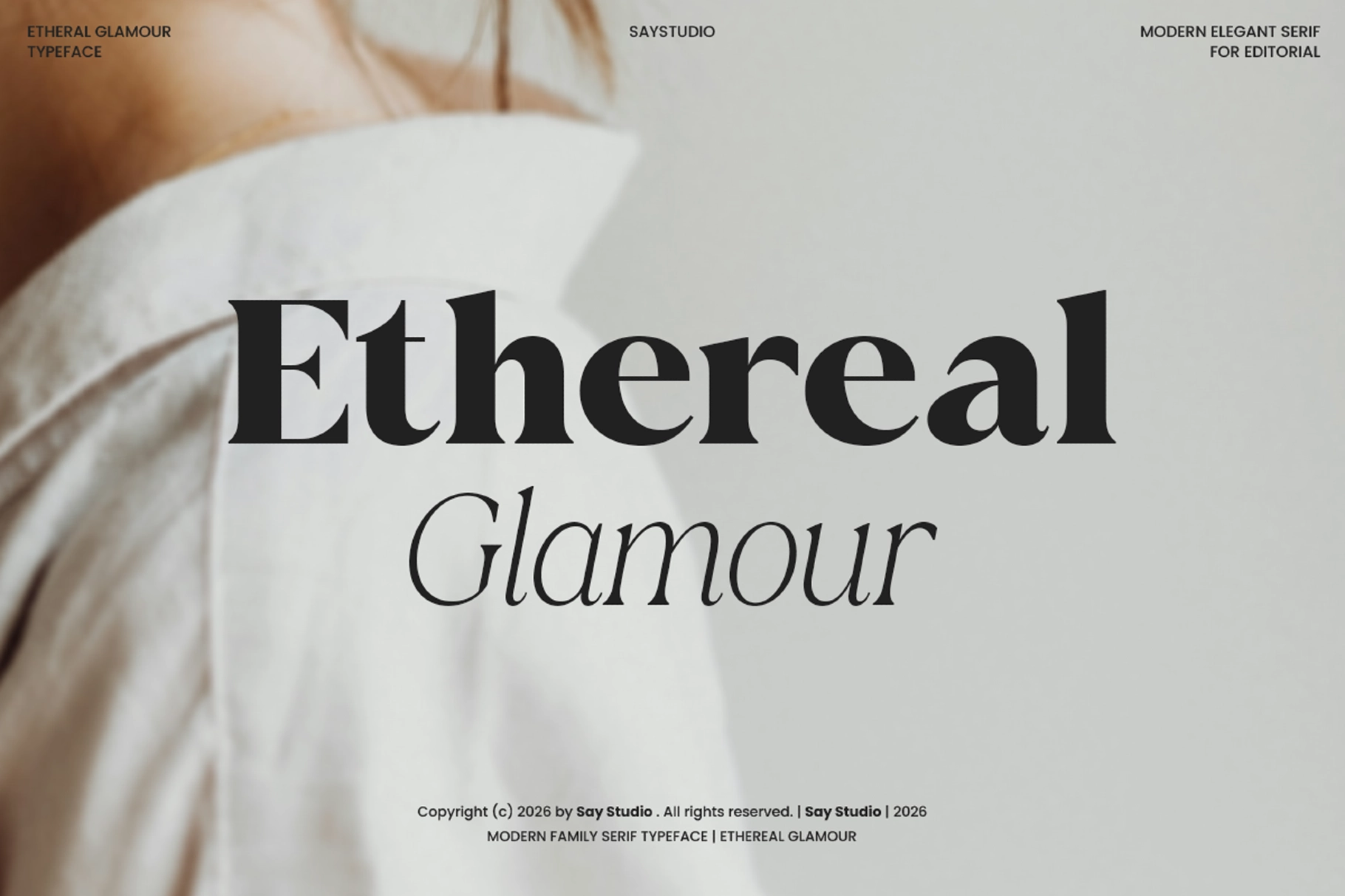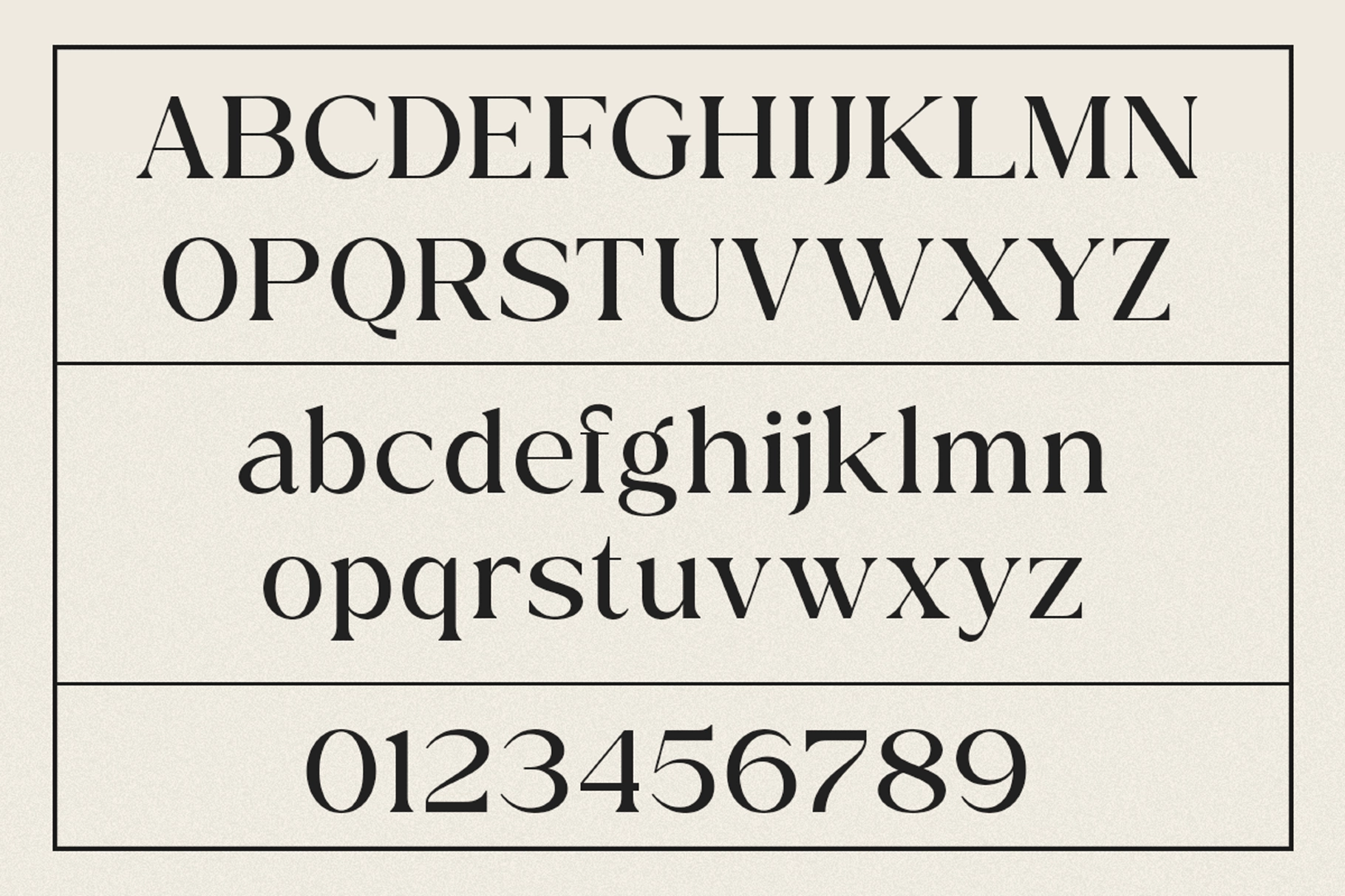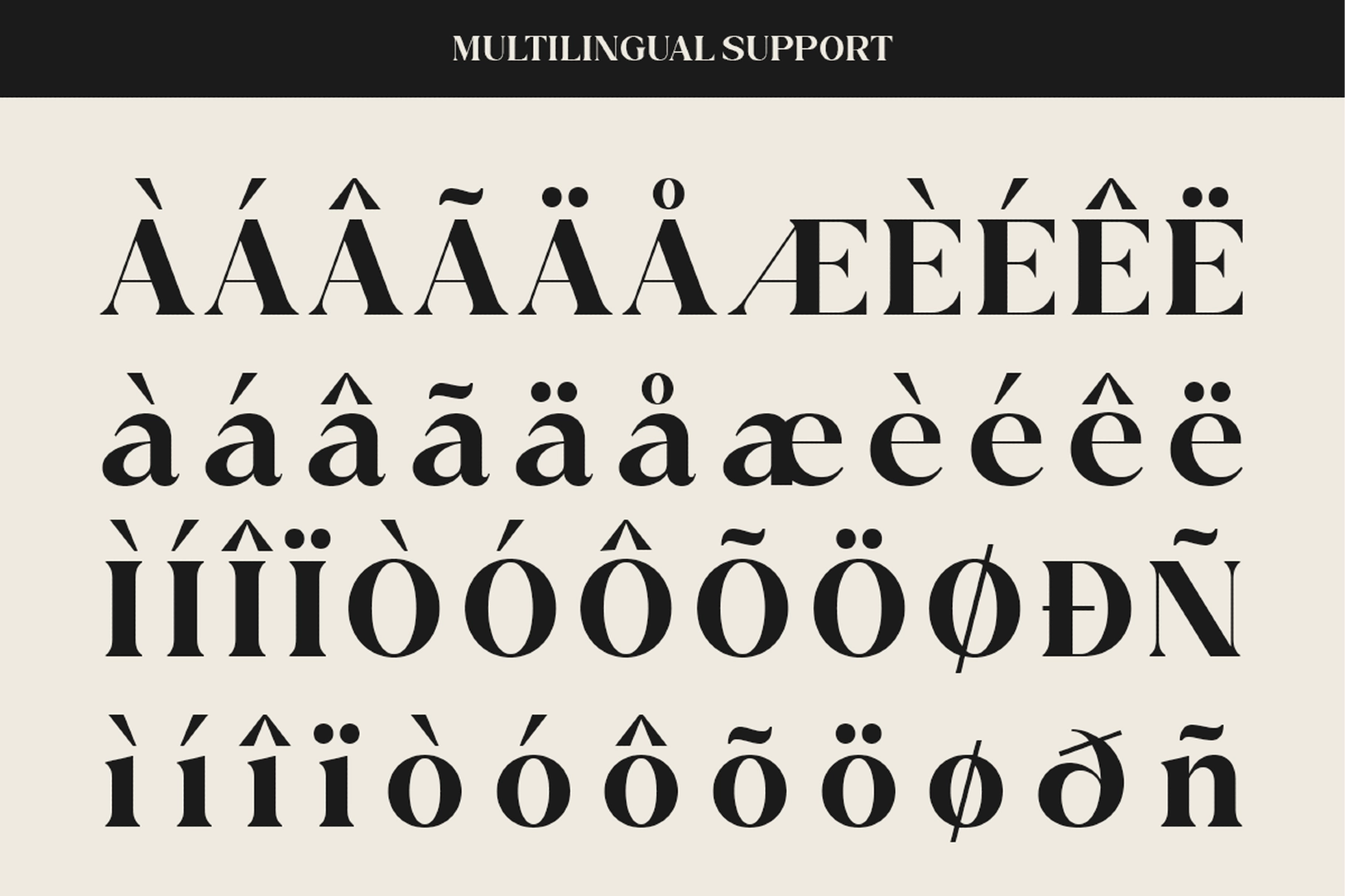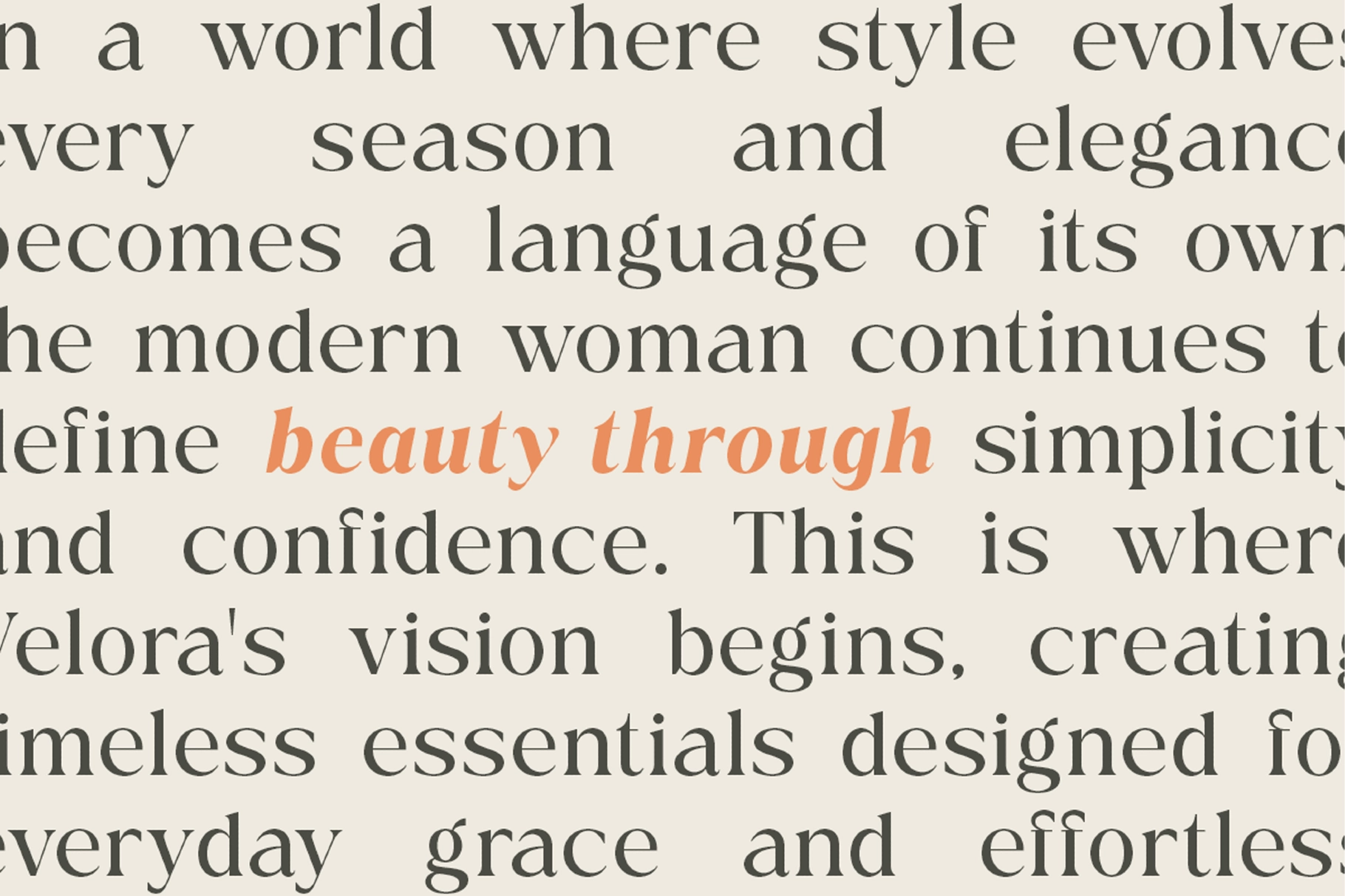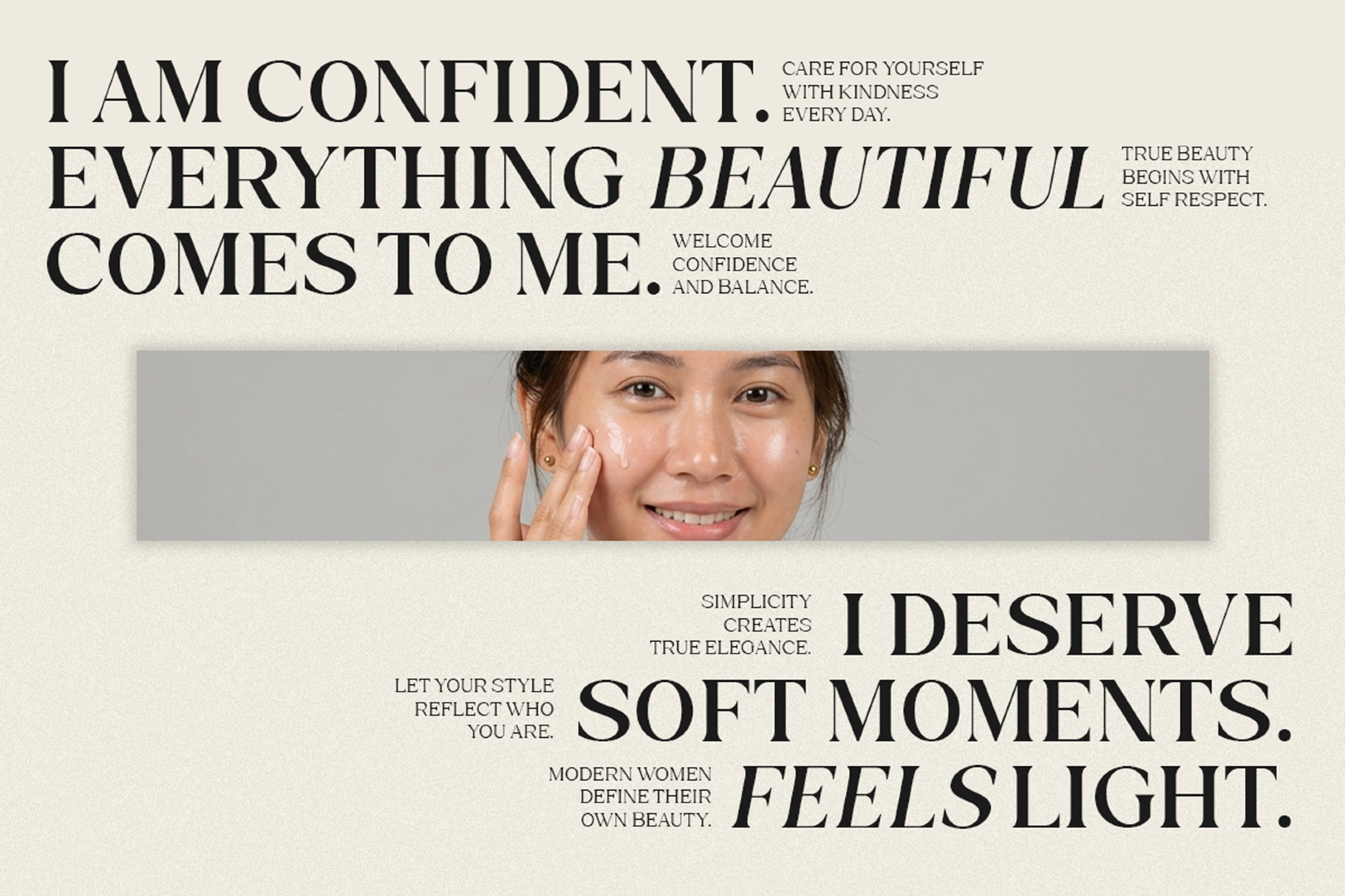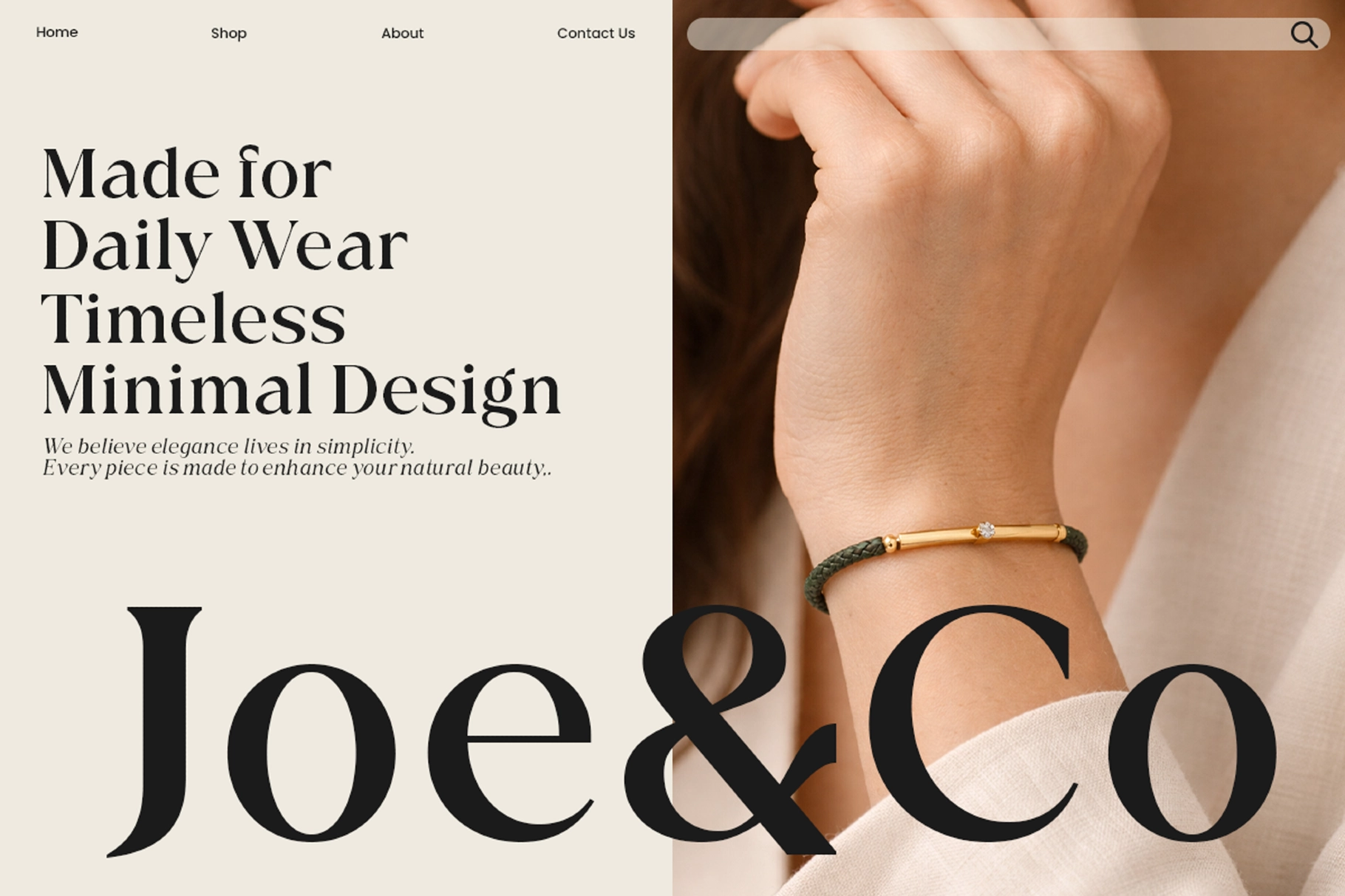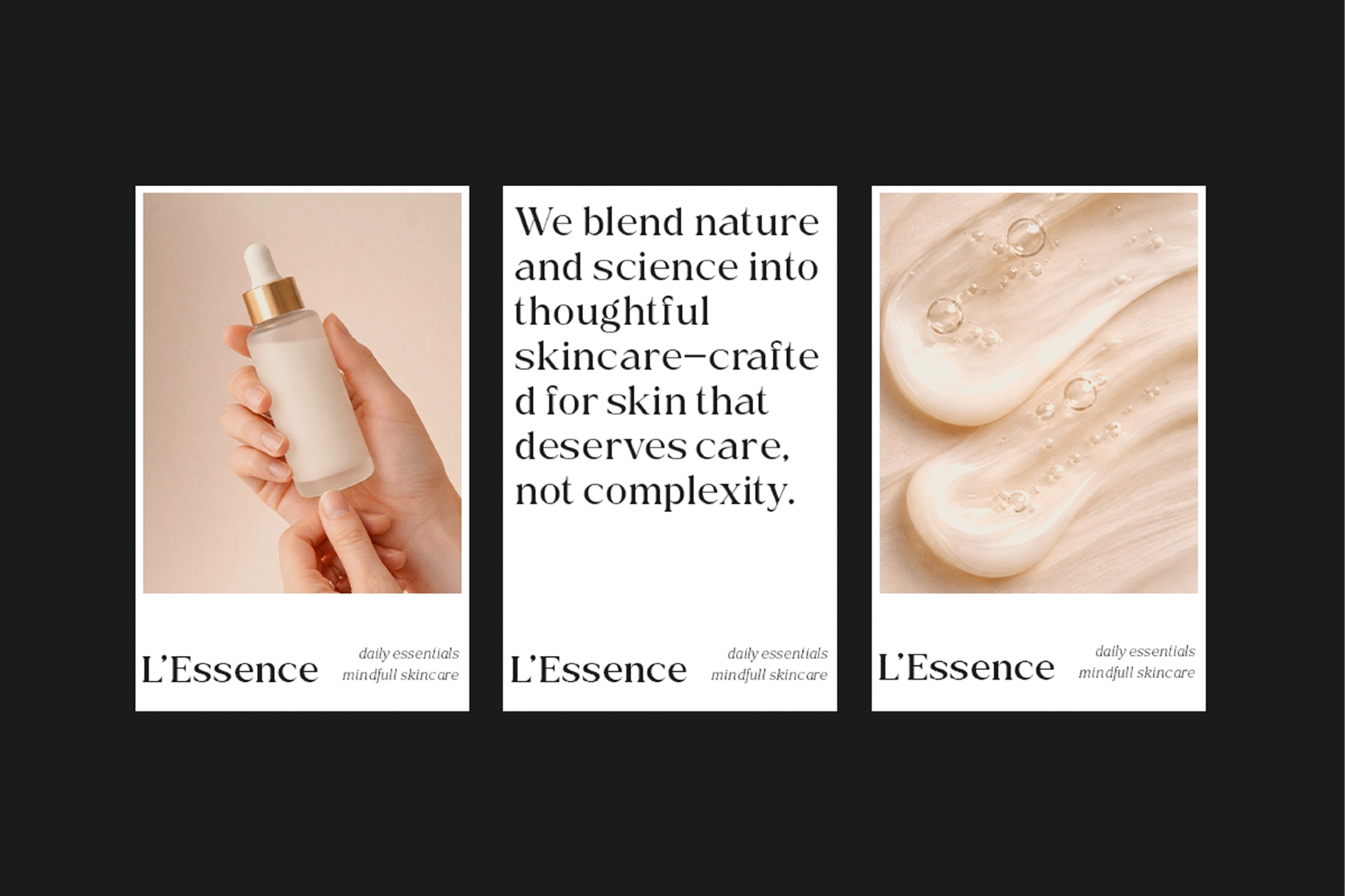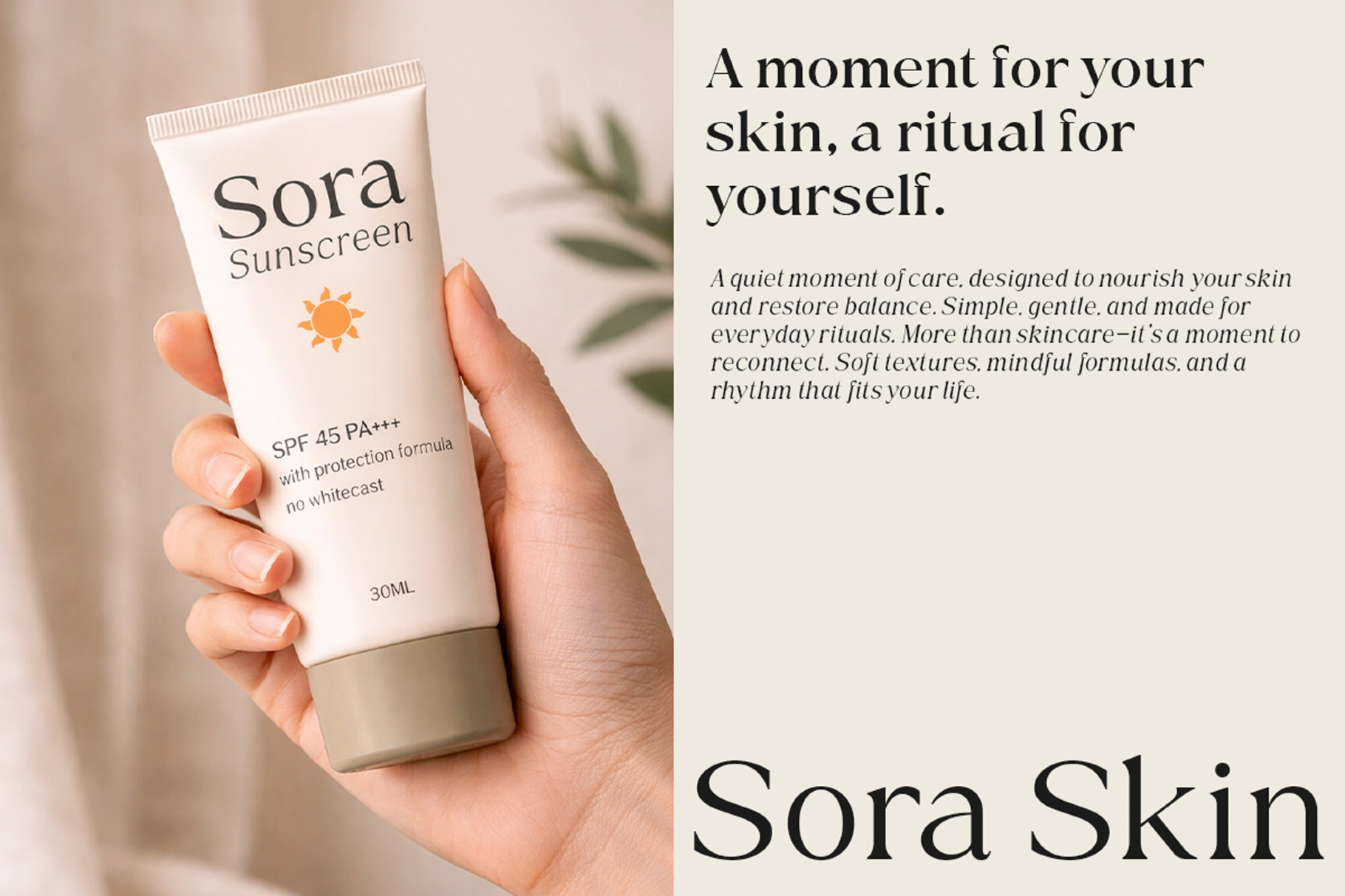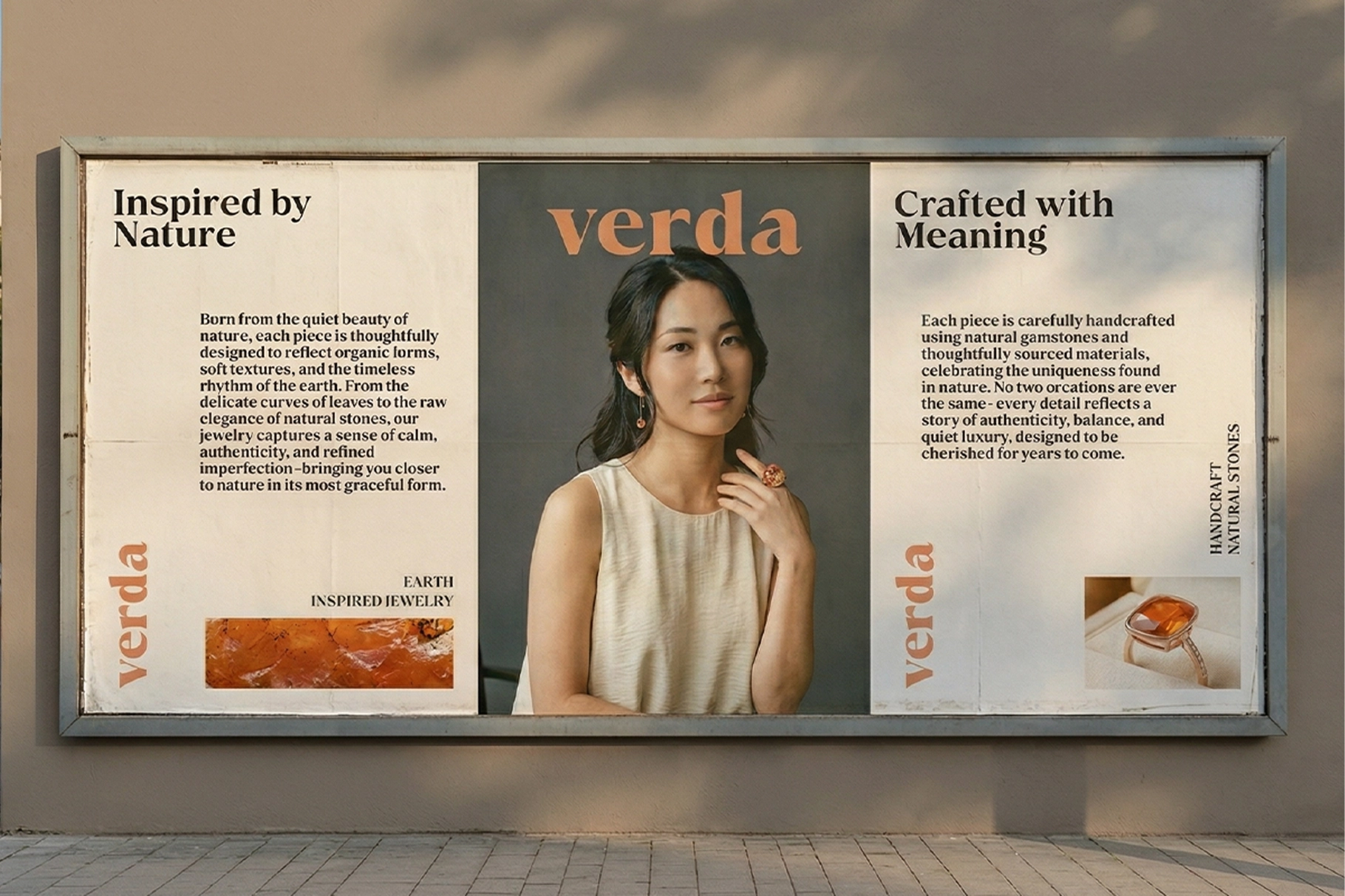
Ethereal Glamour - Luxury Modern Serif Font
Ethereal Glamour, Luxury Modern Serif Font presents a refined high-contrast serif with sculpted curves and crisp terminals, echoing the elegance of contemporary fashion editorials and the poise of Didot-era typography. It lends itself to luxury branding, beauty campaigns, magazine layouts, wedding stationery, perfume packaging, and refined web design where a polished, graceful tone defines the composition.
- Regular & Italic styles